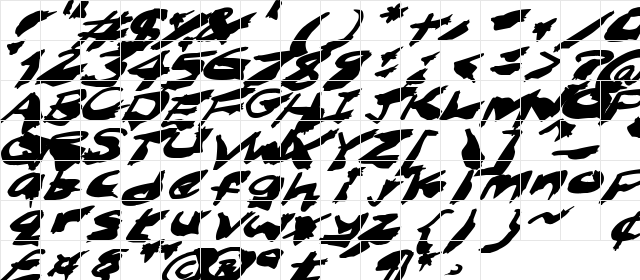
Nightmare Ink Italic
Design Context for Nightmare Ink
Nightmare Ink is a composed and adaptable typeface that performs quietly and consistently across a wide range of design contexts. The slanted form adds forward momentum and visual energy.
Pro Tip: Use Nightmare Ink for emphasis, pull quotes, and subheadings where its slanted energy can add rhythm to the layout.